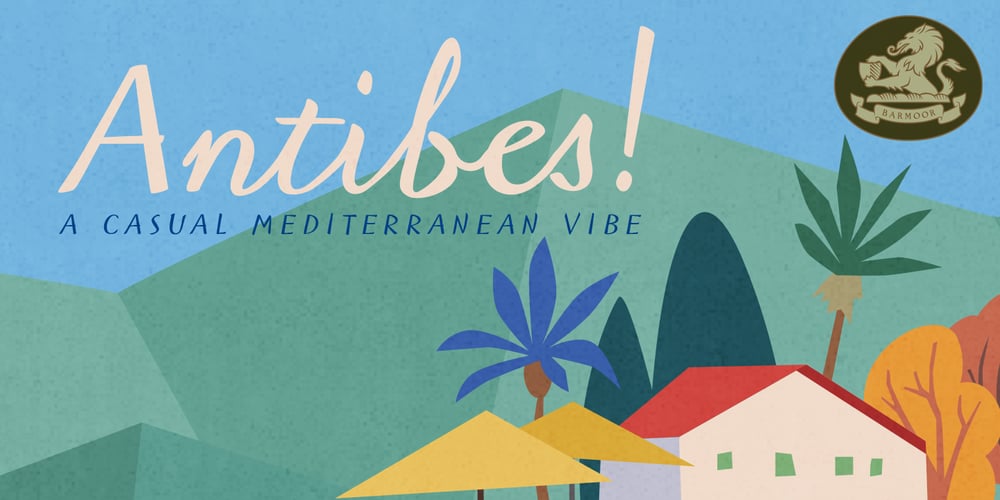
Antibes Font Family was designed by Tracy Sabin and published by Barmoor Foundry. Antibes contains 1 styles and family package options. Antibes is a casual italic face with print caps and cursive lowercase letters. Antibes works well with colorful, freeform illustration and travel-related material like illustrated travel brochures and callouts for maps. All-caps paragraphs are an easy read and letter-spaced all-cap treatments can be used for titling.